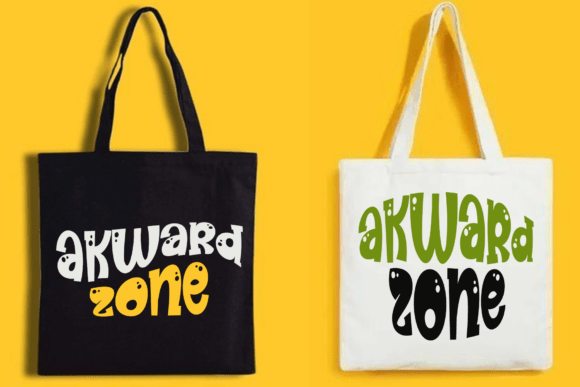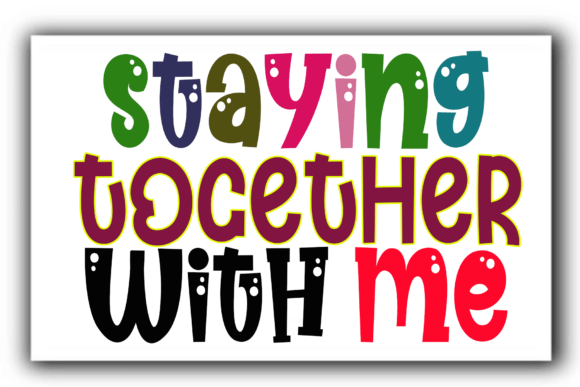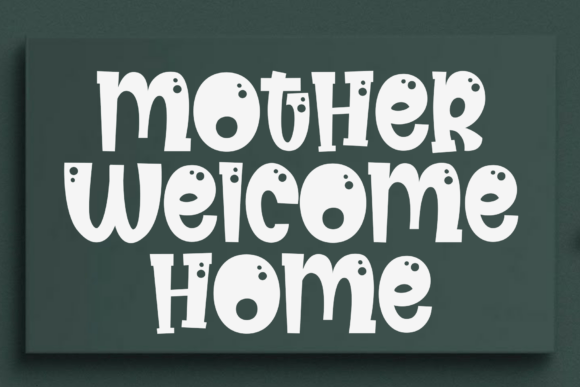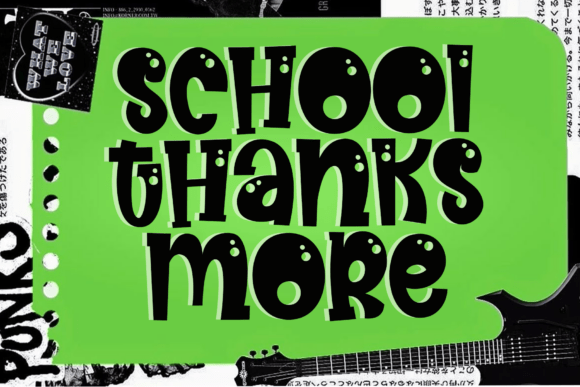
Introducing Comic Pink Font: The Quirky and Elegant Handwritten Font for Creative Projects
Are you a designer or crafter looking for a unique and eye-catching font to elevate your creative projects? Look no further than Comic Pink Font! This simple yet quirky-looking handwritten font is perfect for adding a touch of elegance and modernity to your designs. In this article, we’ll dive into the features and benefits of Comic Pink Font, and explore how you can use it to take your projects to the next level.
What is Comic Pink Font?
Comic Pink Font is a beautiful, handwritten font that boasts a classy, elegant, and modern look. Its quirky and playful vibe makes it perfect for a wide range of creative projects, from logos and branding to invitations, stationery, and wedding designs. With its unique and eye-catching style, Comic Pink Font is sure to make your designs stand out from the crowd.
Key Features of Comic Pink Font
• Handwritten style: Comic Pink Font has a beautiful, handwritten style that adds a personal touch to your designs.
• Quirky and playful vibe: The font’s quirky and playful vibe makes it perfect for creative projects that require a touch of whimsy.
• Elegant and modern look: Despite its playful vibe, Comic Pink Font has an elegant and modern look that makes it suitable for a wide range of projects.
• Versatile: Comic Pink Font can be used for a variety of projects, including logos, branding, invitations, stationery, wedding designs, social media posts, and more.
Benefits of Using Comic Pink Font
So why should you choose Comic Pink Font for your creative projects? Here are just a few benefits of using this amazing font:
• Adds a personal touch: The handwritten style of Comic Pink Font adds a personal touch to your designs, making them more relatable and engaging.
• Stand out from the crowd: The unique and eye-catching style of Comic Pink Font ensures that your designs will stand out from the crowd.
• Perfect for creative projects: Comic Pink Font is perfect for a wide range of creative projects, from logos and branding to invitations and wedding designs.
How to Use Comic Pink Font
Using Comic Pink Font is easy! Here are a few ways you can use this amazing font:
• Logos and branding: Use Comic Pink Font to create unique and eye-catching logos and branding materials.
• Invitations and stationery: Add a touch of elegance and whimsy to your invitations and stationery with Comic Pink Font.
• Wedding designs: Comic Pink Font is perfect for wedding designs, including wedding invitations, programs, and more.
• Social media posts: Use Comic Pink Font to add a touch of personality to your social media posts.
Tips and Tricks for Getting the Most Out of Comic Pink Font
Here are a few tips and tricks for getting the most out of Comic Pink Font:
• Experiment with different colors: Try pairing Comic Pink Font with different colors to create unique and eye-catching designs.
• Mix and match with other fonts: Comic Pink Font pairs well with other fonts, so feel free to experiment with different combinations.
• Use it for headlines and titles: Comic Pink Font is perfect for headlines and titles, where its quirky and playful vibe can really shine.
In conclusion, Comic Pink Font is a simple yet quirky-looking handwritten font that is perfect for adding a touch of elegance and modernity to your creative projects. With its unique and eye-catching style, Comic Pink Font is sure to make your designs stand out from the crowd. Whether you’re a designer or crafter, Comic Pink Font is a must-have font that you’ll love using again and again.